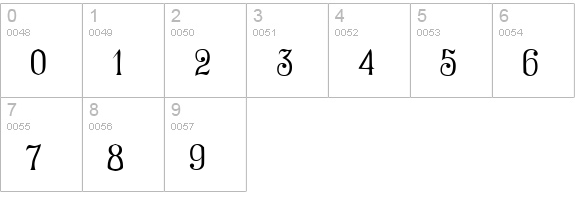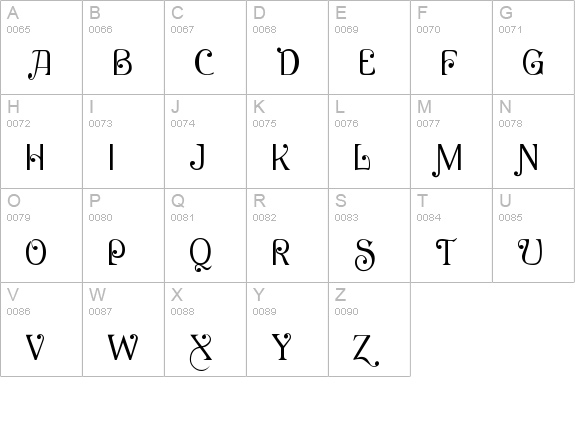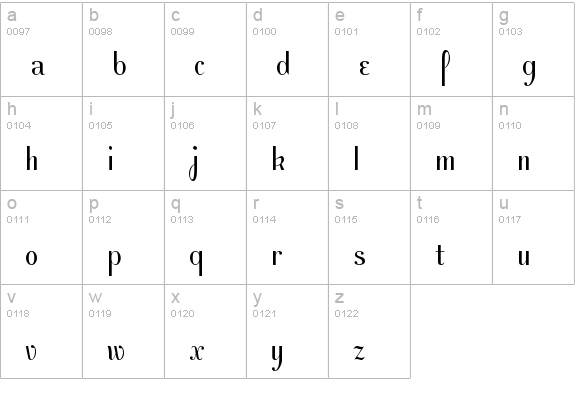
AcornSwashAltern Font Details
AcornSwashAltern font is a charming and versatile typeface that exudes elegance and sophistication. With its unique swash alternates and delicate curves, this font is perfect for adding a touch of whimsy and flair to your design projects. Whether you're creating invitations, posters, or branding materials, AcornSwashAltern font is sure to make a statement. The best part? This stunning font is available for free download at FontsMarket.com. Embrace the beauty and creativity of AcornSwashAltern font without any cost attached. Download now and elevate your designs with this captivating typeface.